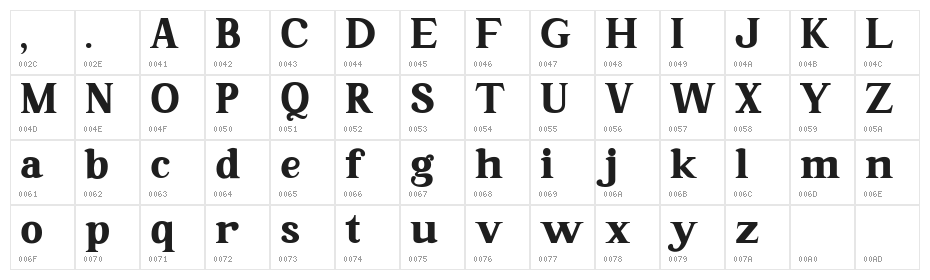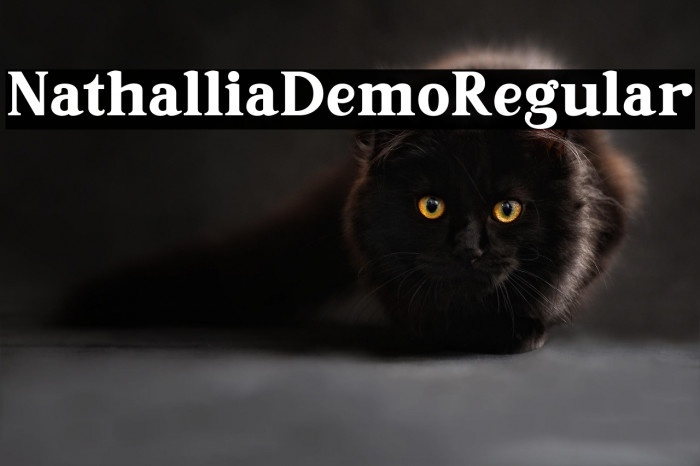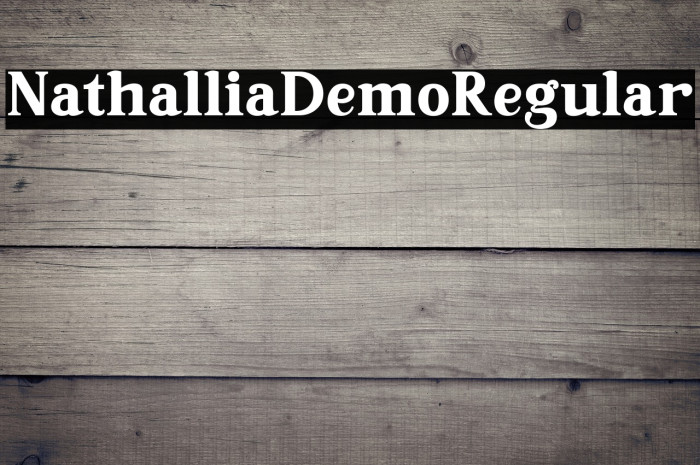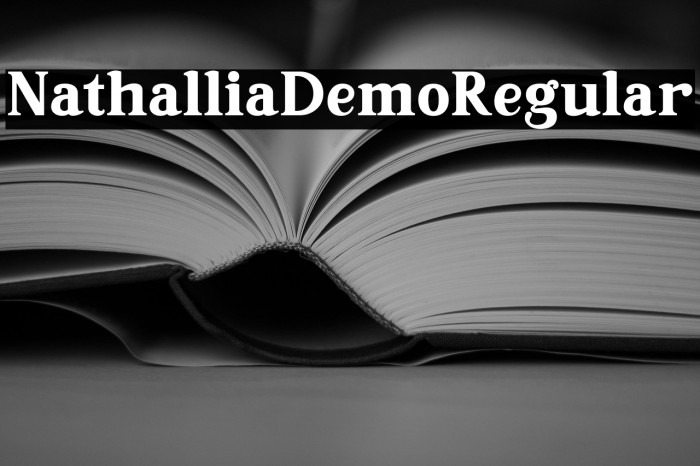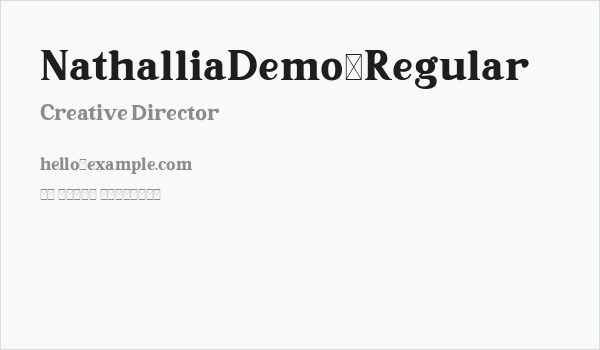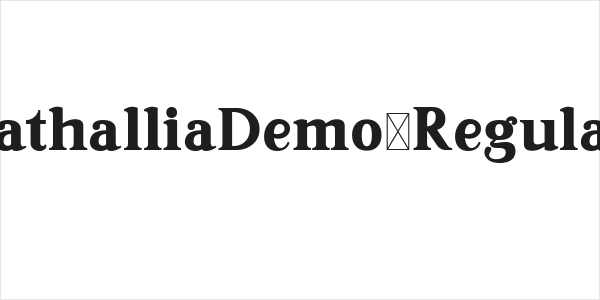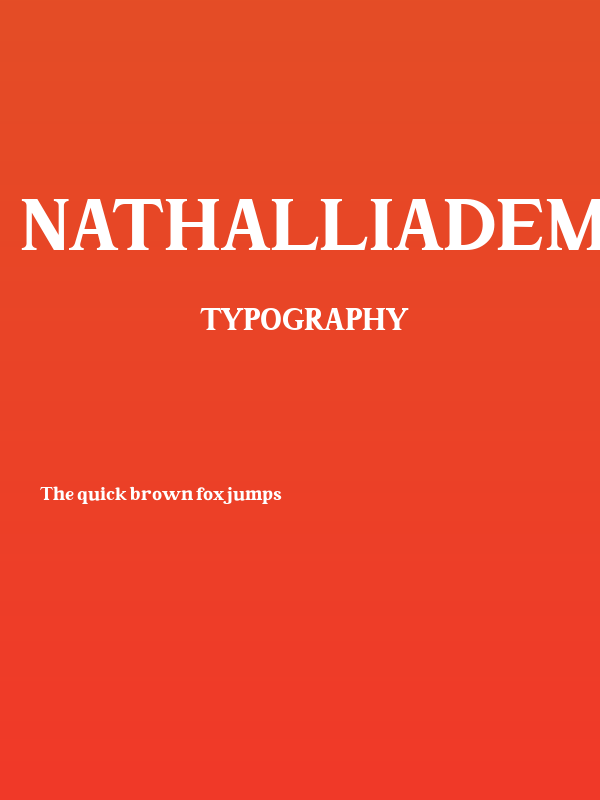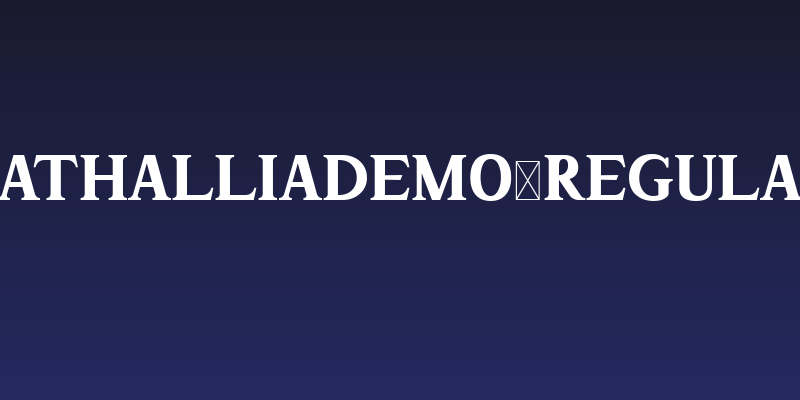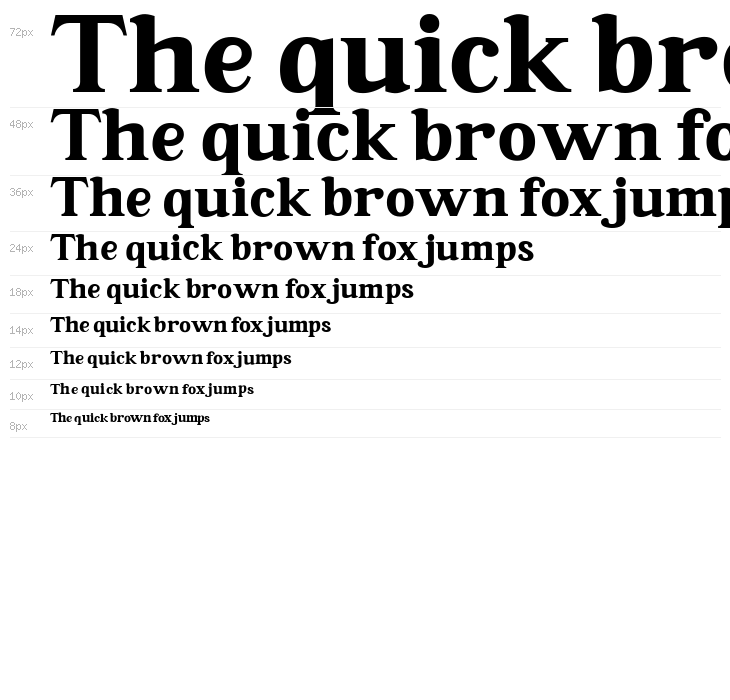
NathalliaDemo-Regular Font
NathalliaDemo-Regular Description
This font features a classic serif style with strong, bold strokes and elegant curves. The uppercase letters are prominent and commanding, while the lowercase letters maintain a consistent and harmonious flow. The serifs are pronounced, adding a touch of sophistication and tradition. The font's overall appearance is balanced, making it suitable for both formal and creative applications. The characters are well-spaced, ensuring readability and clarity. This font exudes a timeless elegance, perfect for projects that require a touch of class and refinement.
| Proposed Projects | Ideal for book covers, formal invitations, branding, and editorial design. |